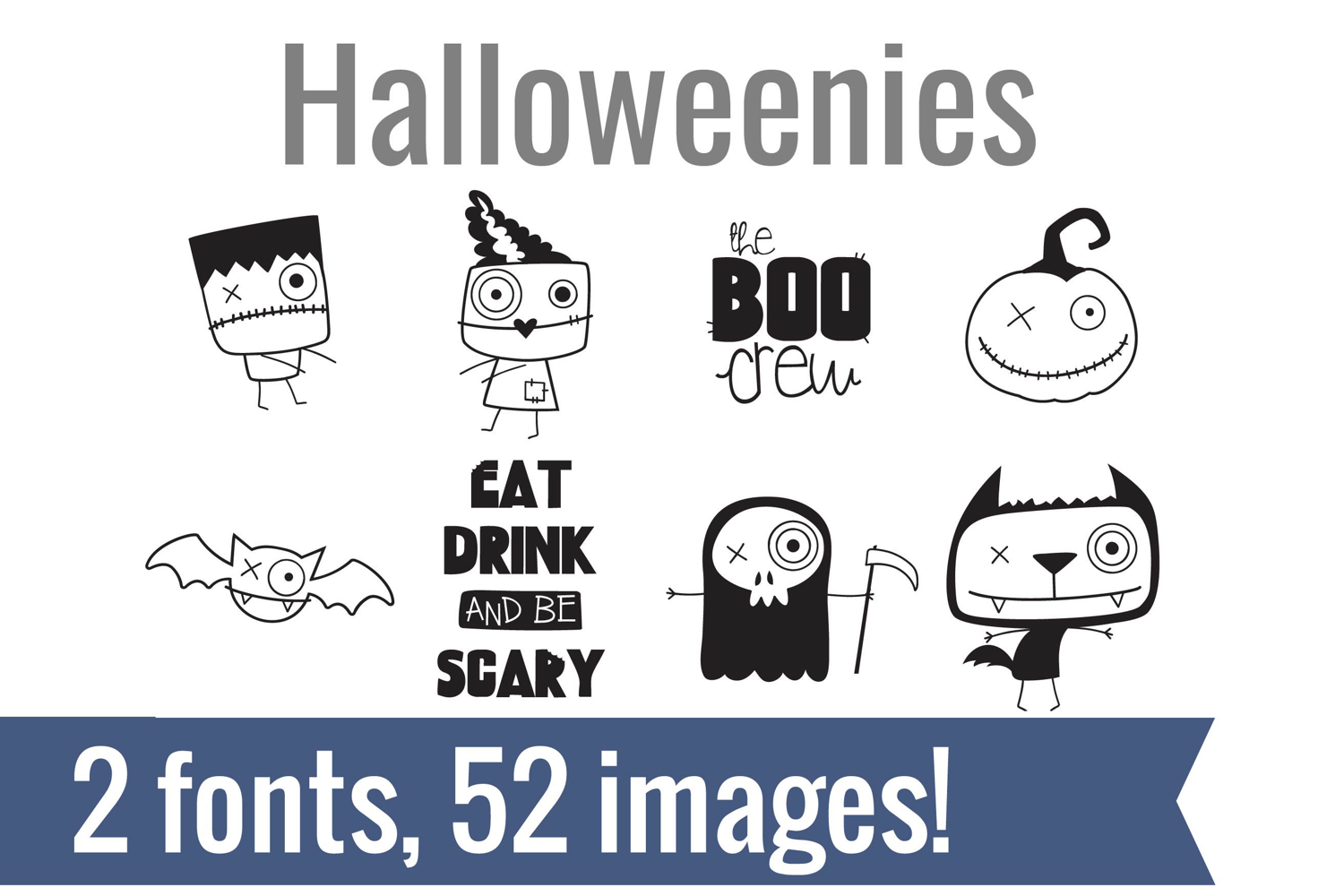
Halloweenies Dingbats
Unlock endless creativity with two perfectly coordinated fonts! There are two dingbat fonts in this bundle, both featuring the cutest stick figure Halloween characters and elements.
Tired of spending hours searching for the perfect icons and graphics? Our dingbat fonts put dozens of cohesive, scalable designs at your fingertips. Simply install the font and type a letter to produce a pre-made image. From charming seasonal icons for holiday cards to intricate frames for your invitations, these fonts let you create stunning designs for vinyl cutting, paper crafts, planners, and more.